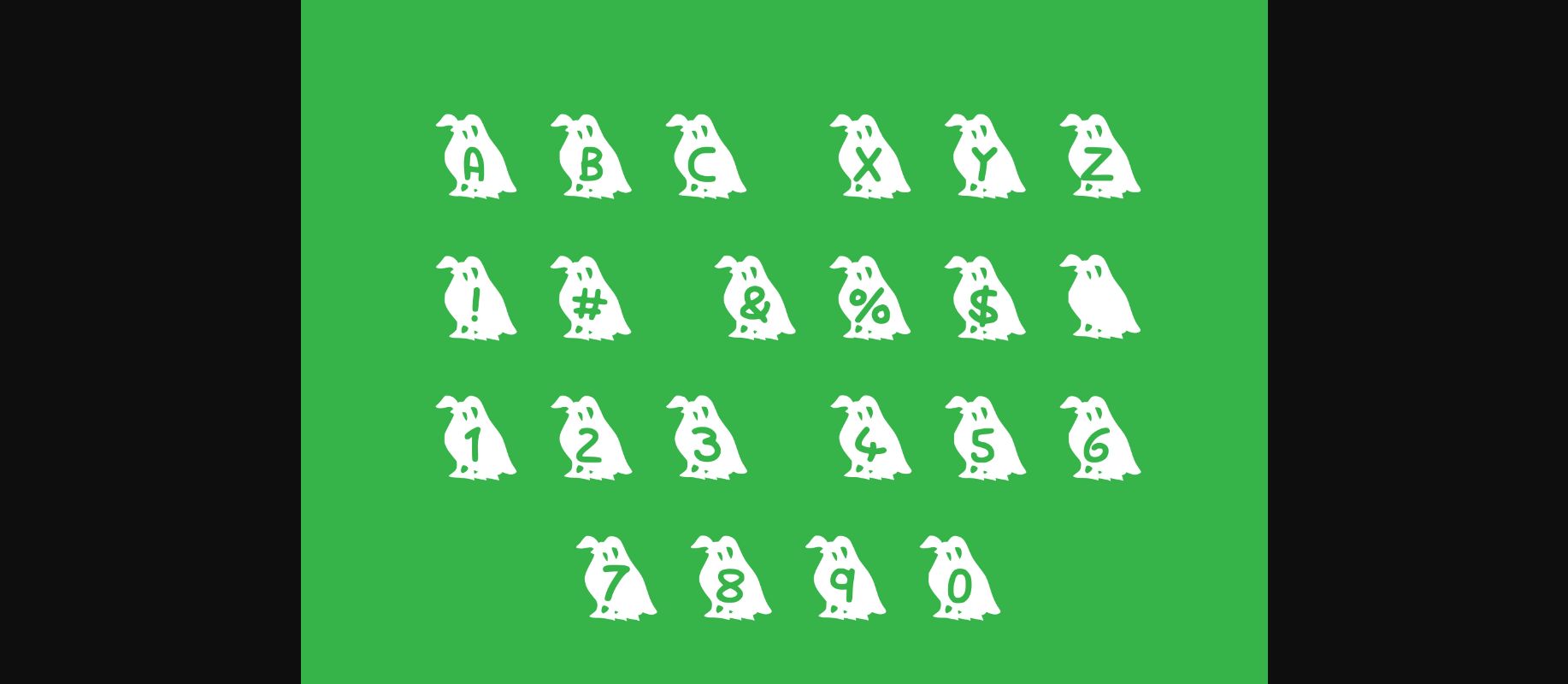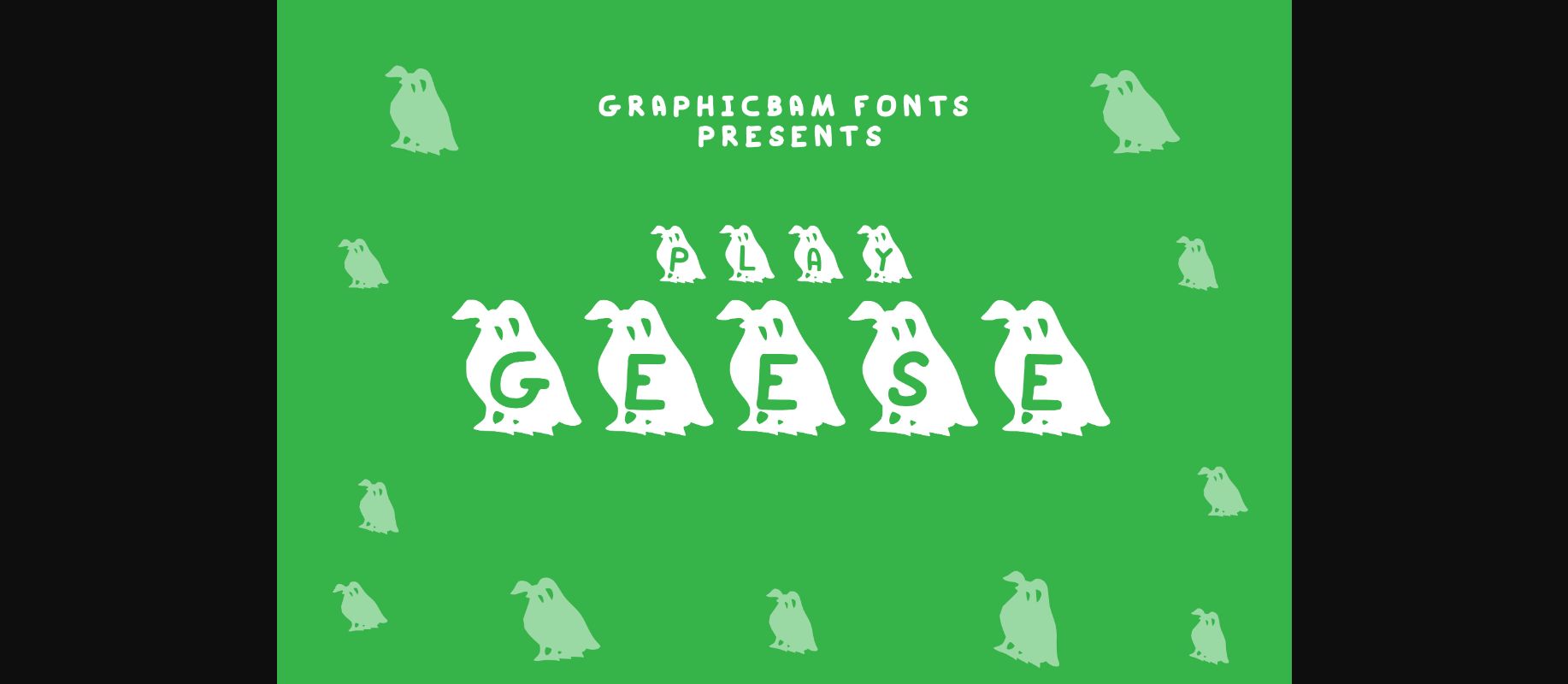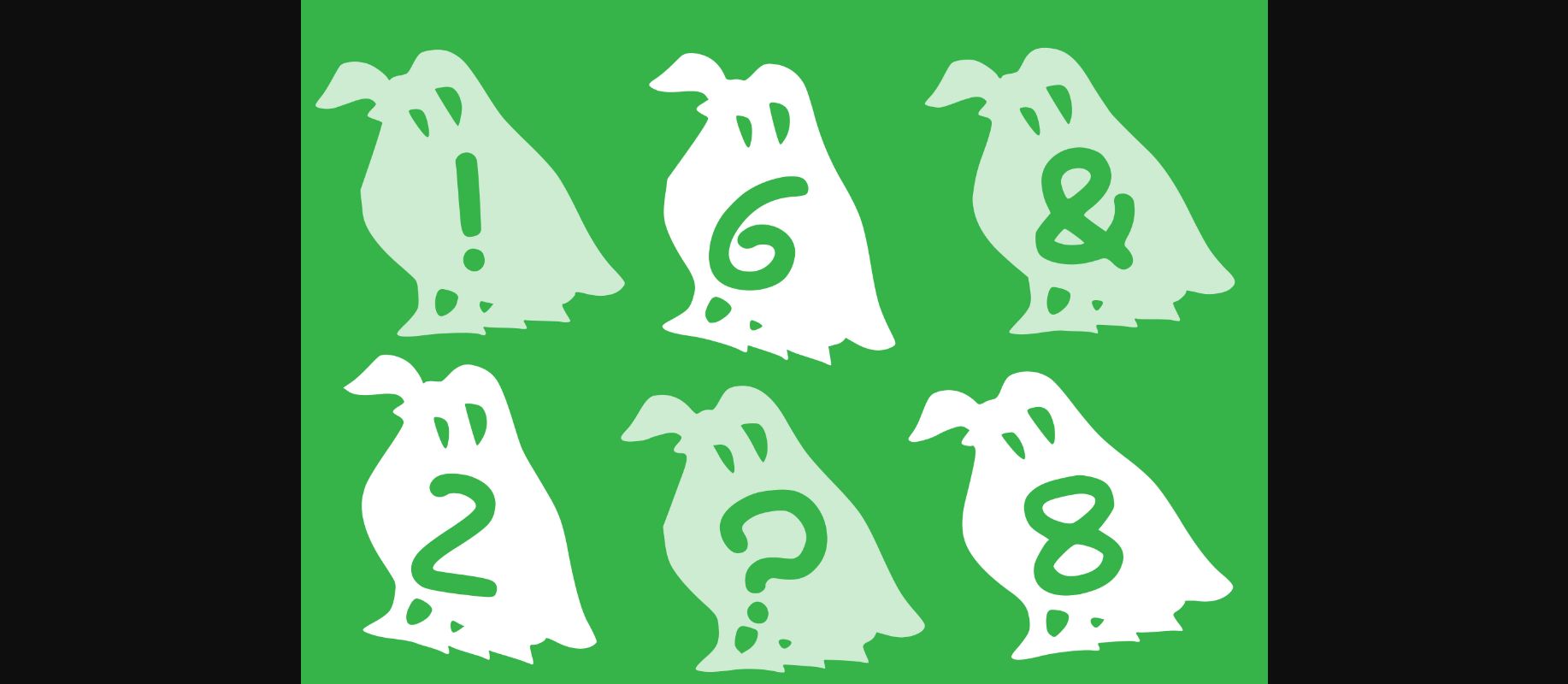
Play Geese Font
About Play Geese Font
Play Geese is a cool and entertaining decorative font, perfect for bold projects that need to stand out from the crowd! Use it for back-to-school projects, biology-related designs, farm-related ideas, or more.